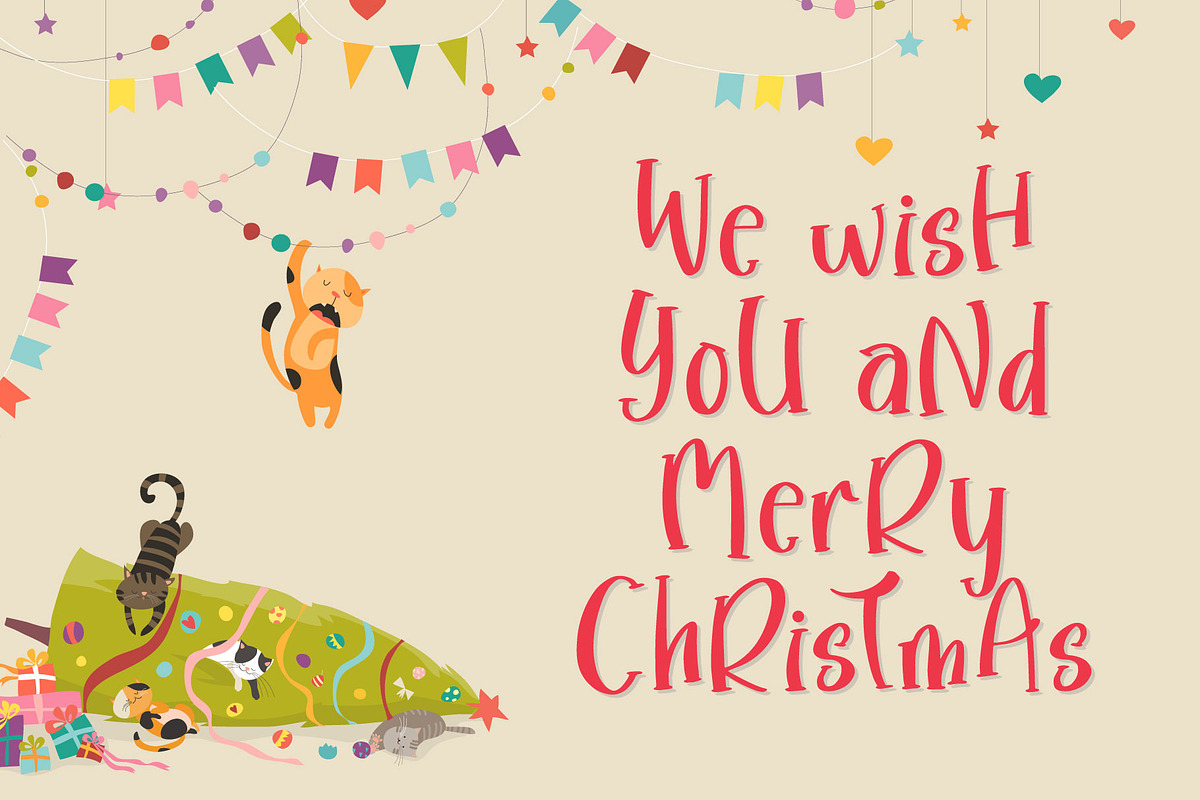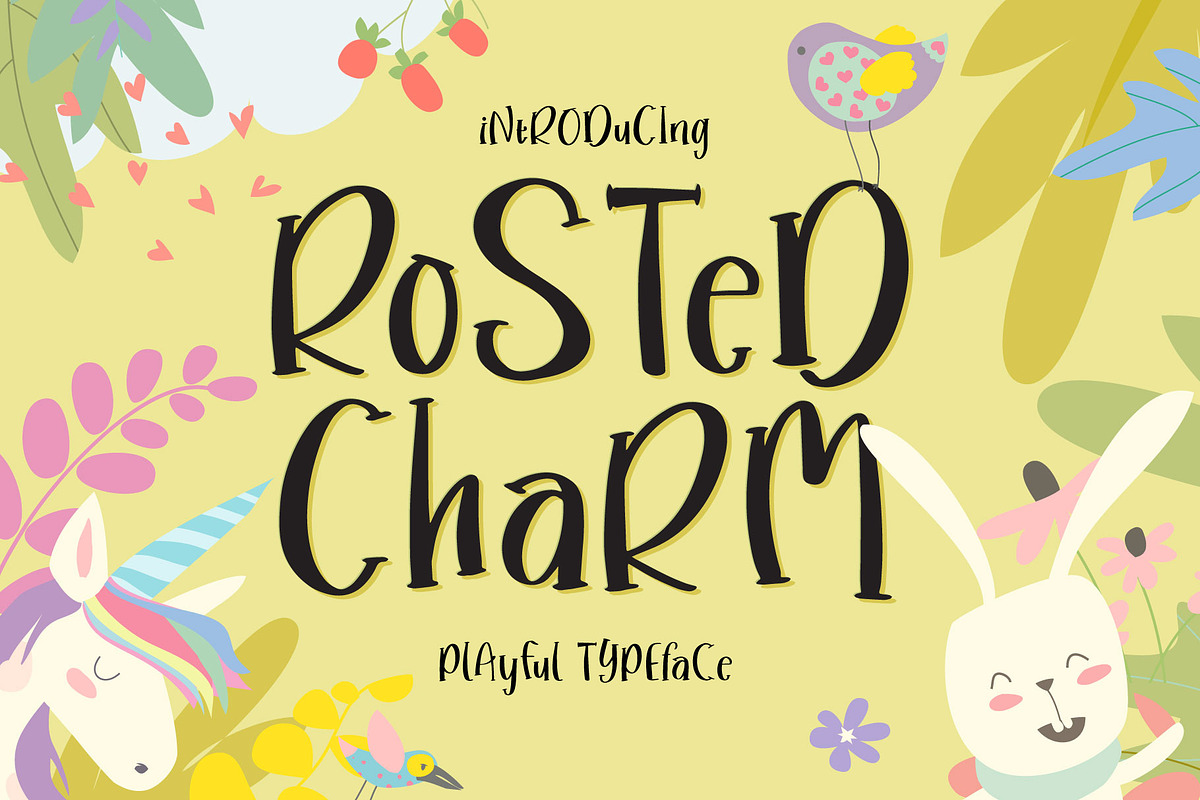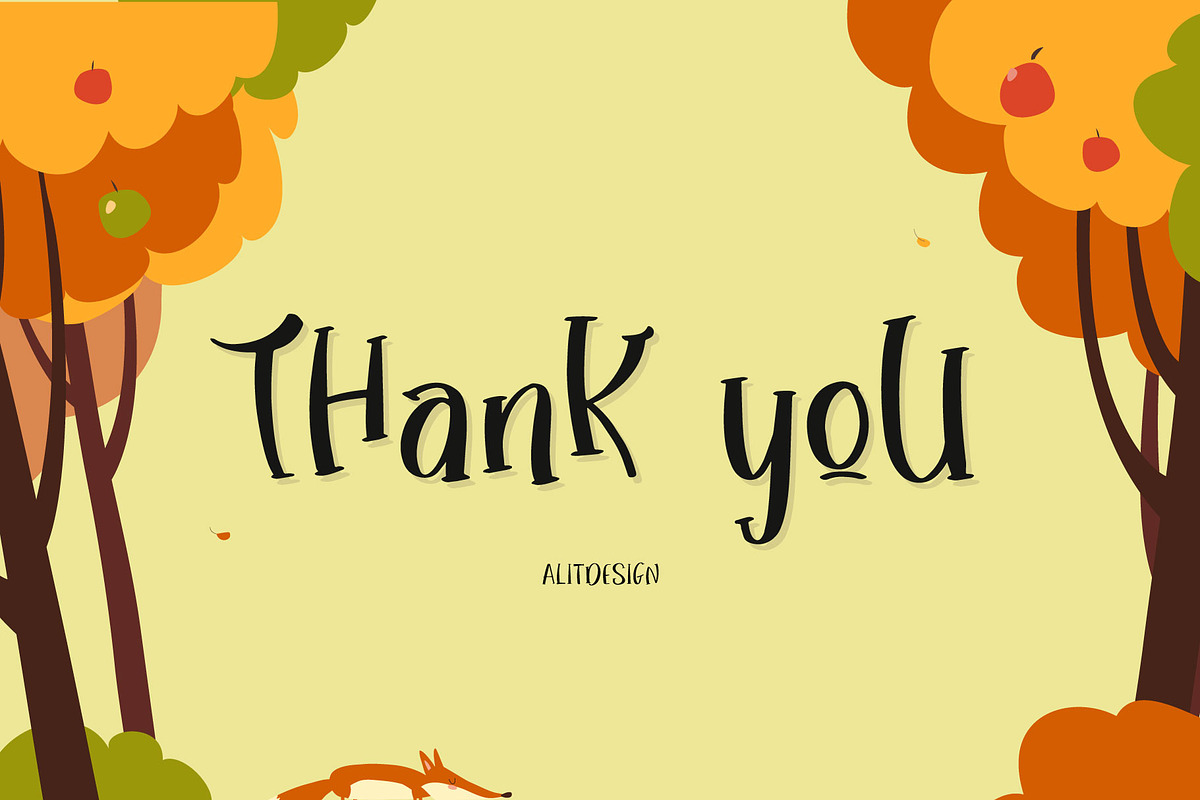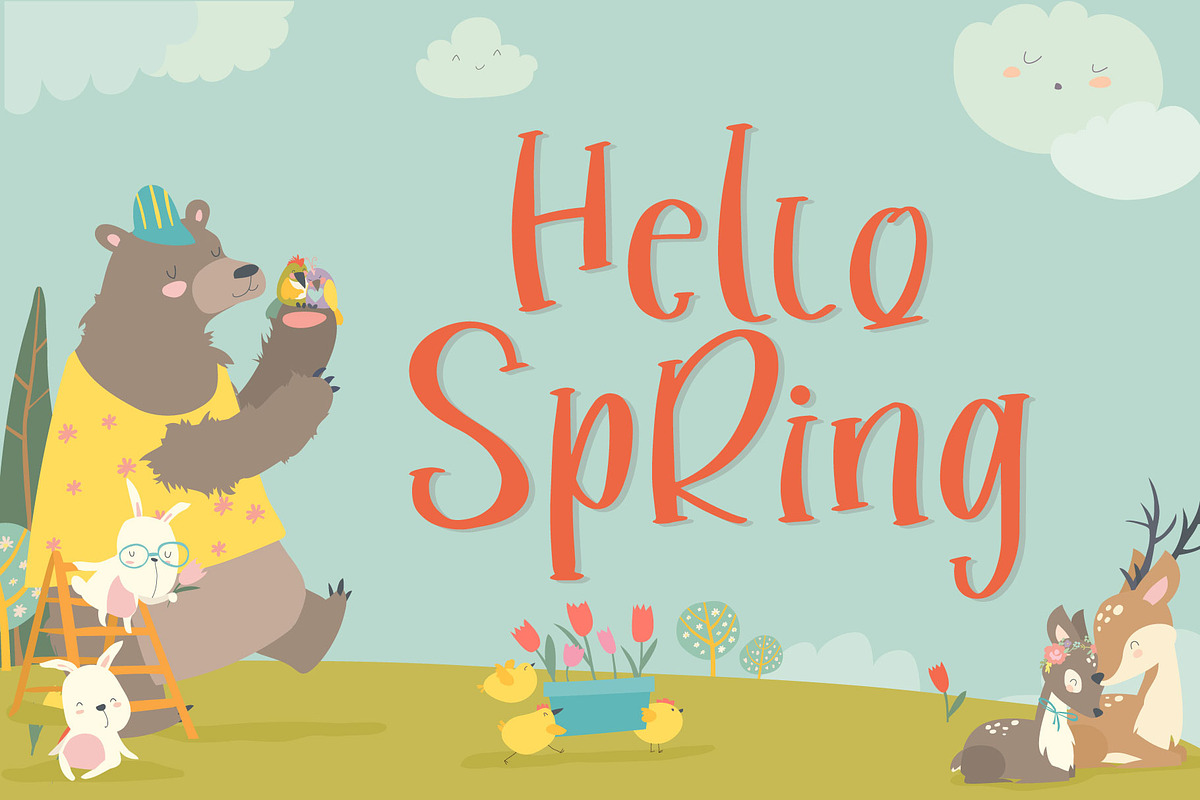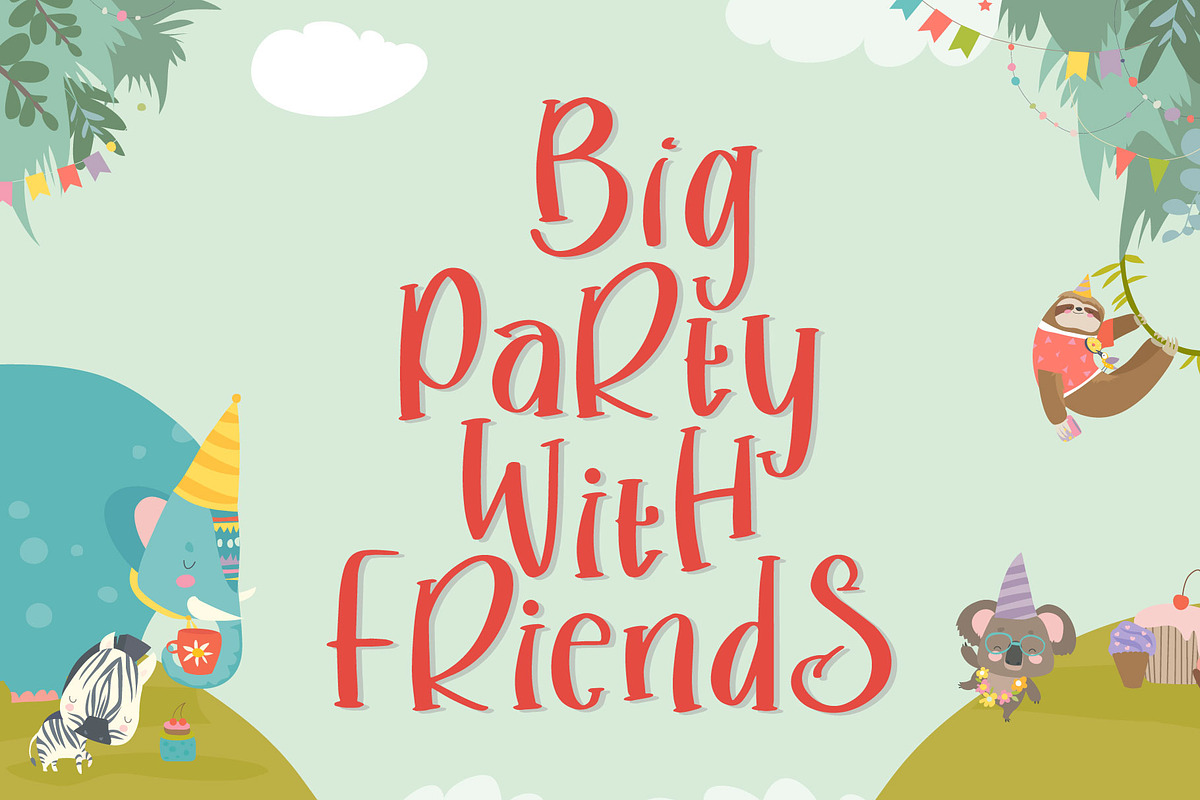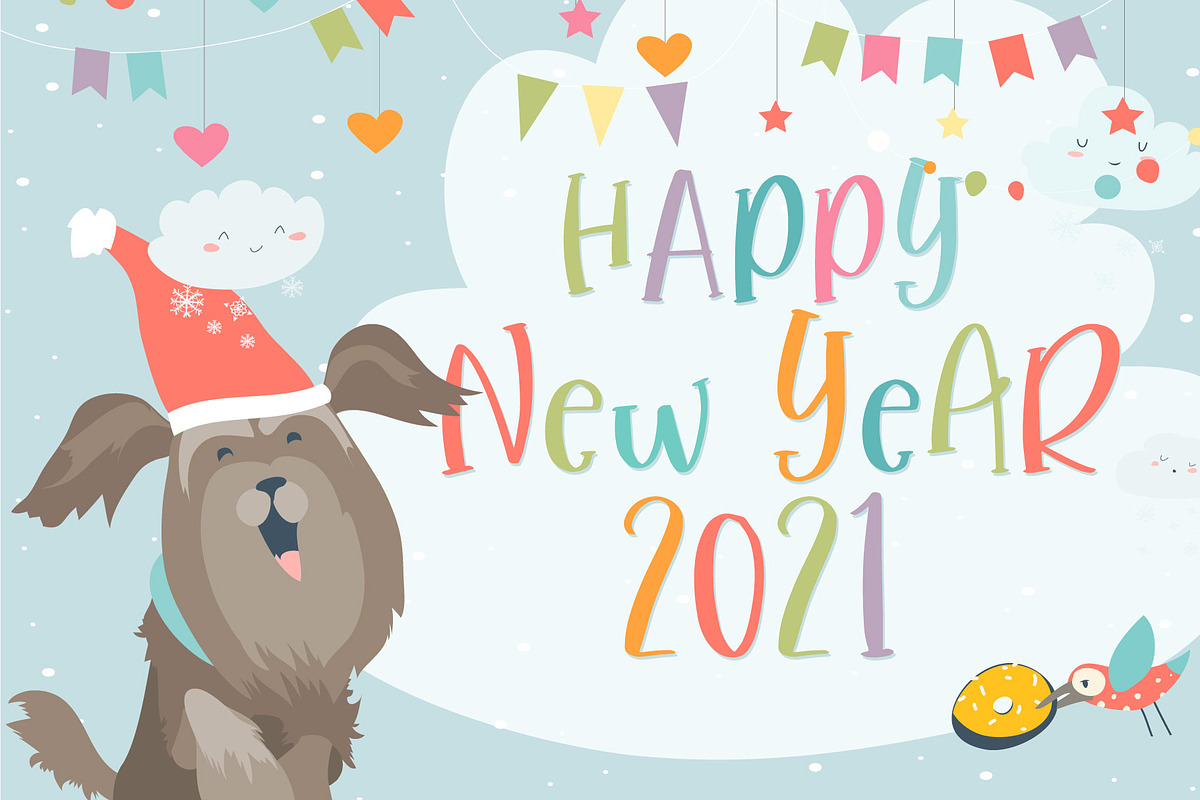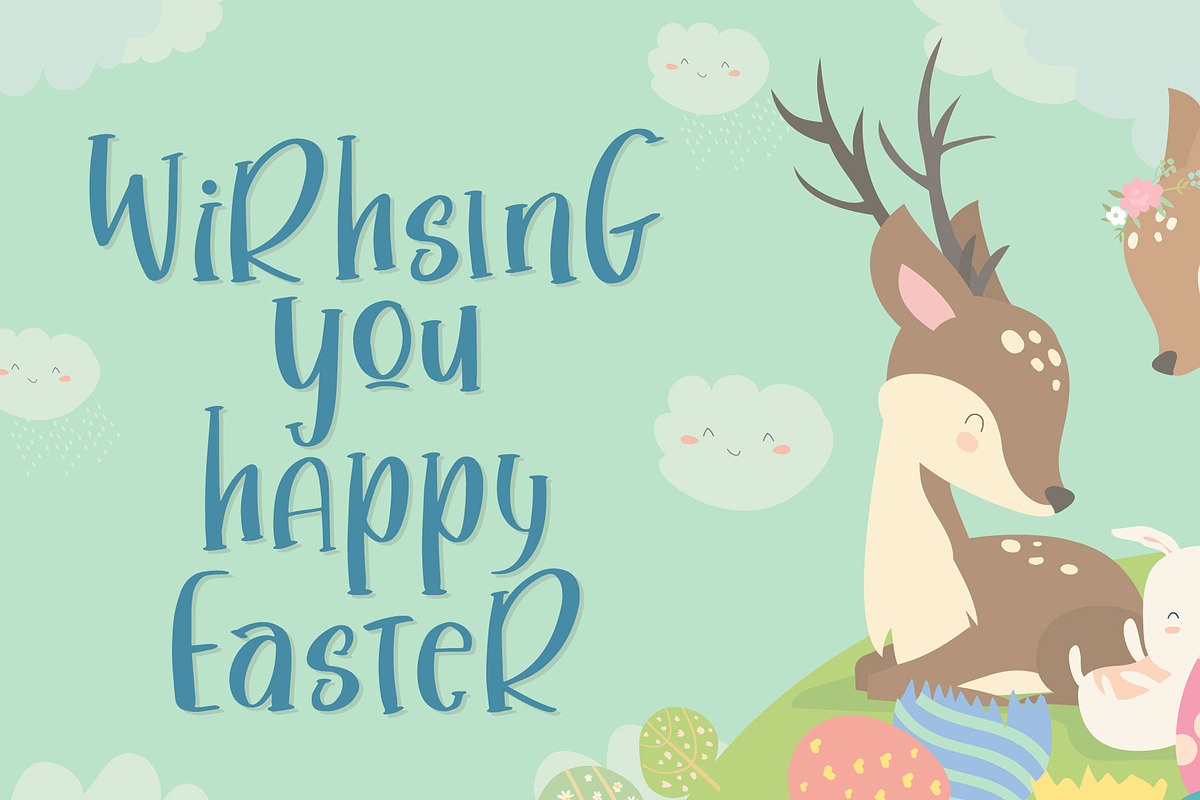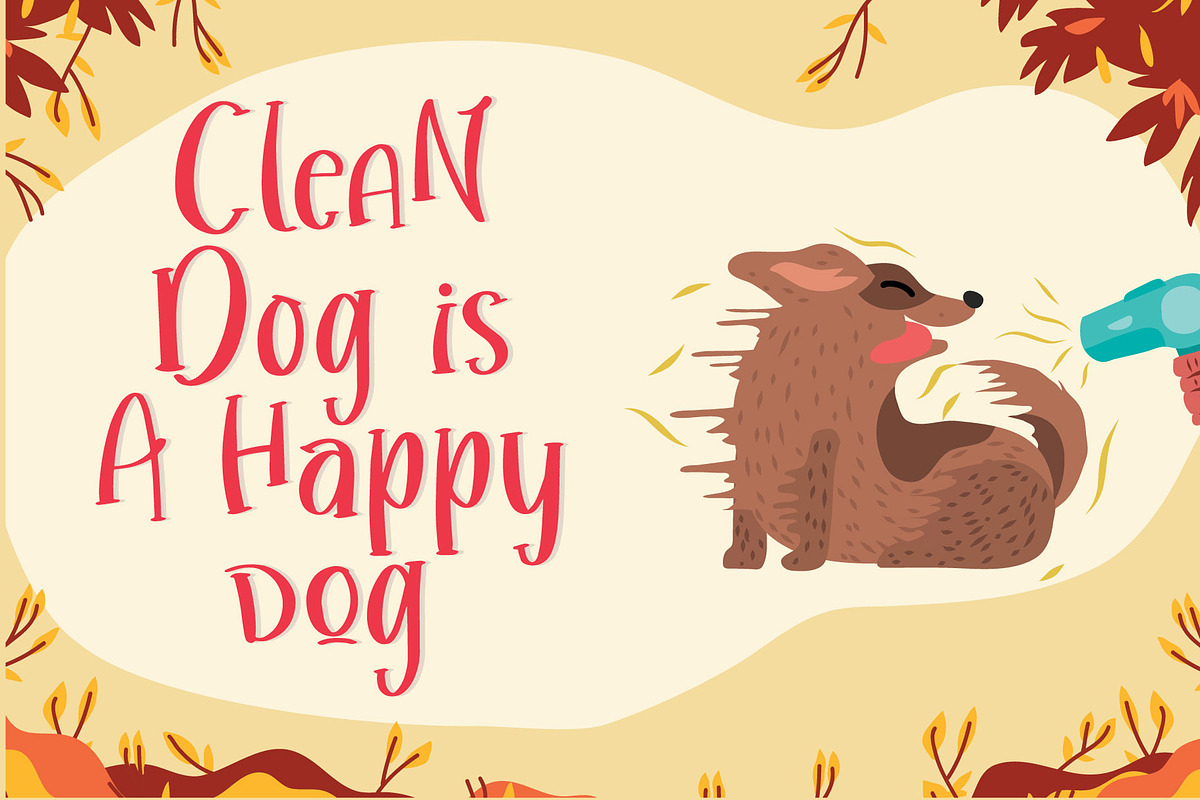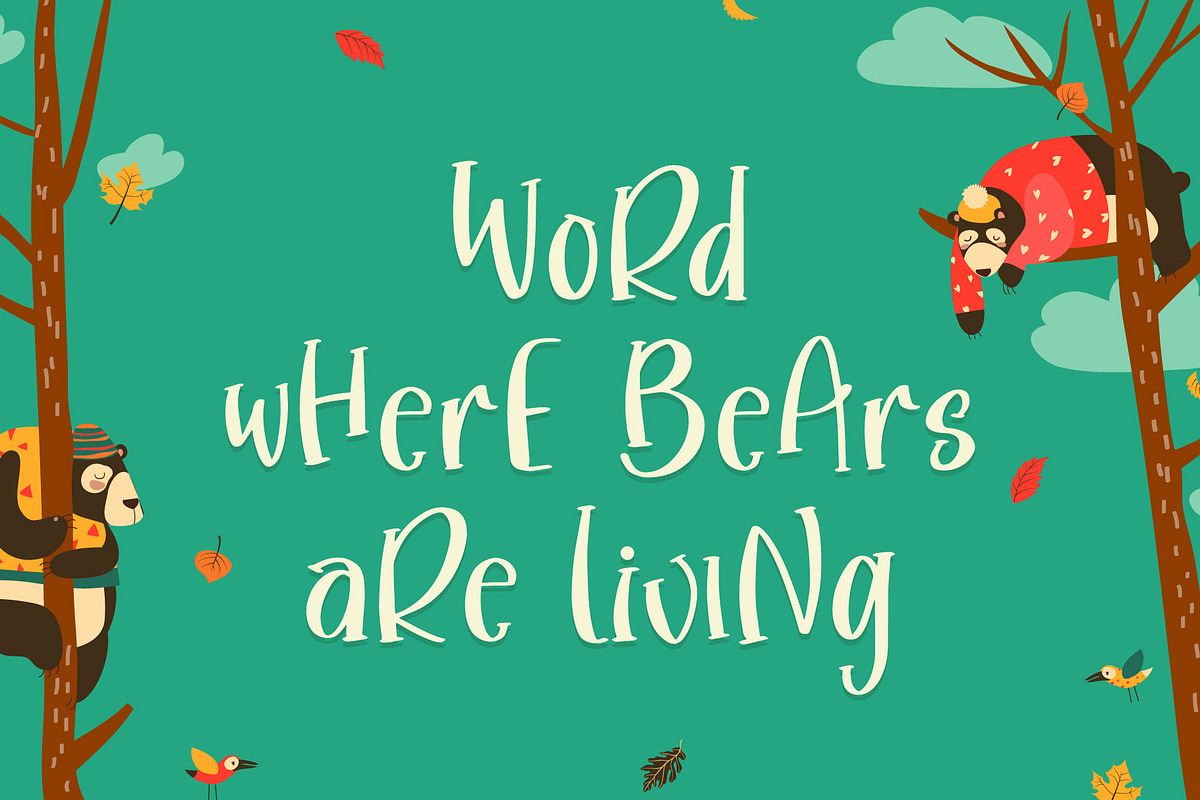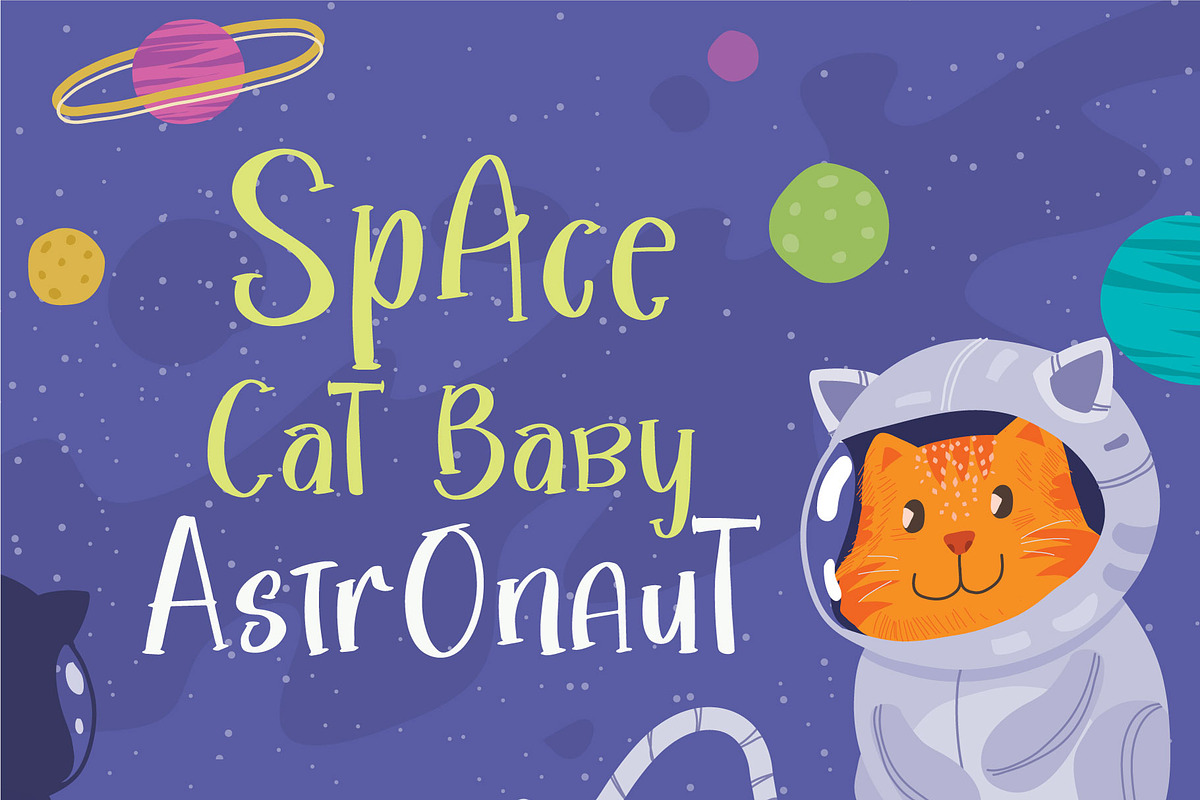
Rosted Charm
Rosted Charm is a fun and charming display font. It’s simple and friendly style makes this design incredibly versatile, fitting a wide variety of creative ideas. Very suitable for children's and cartoon design concepts.